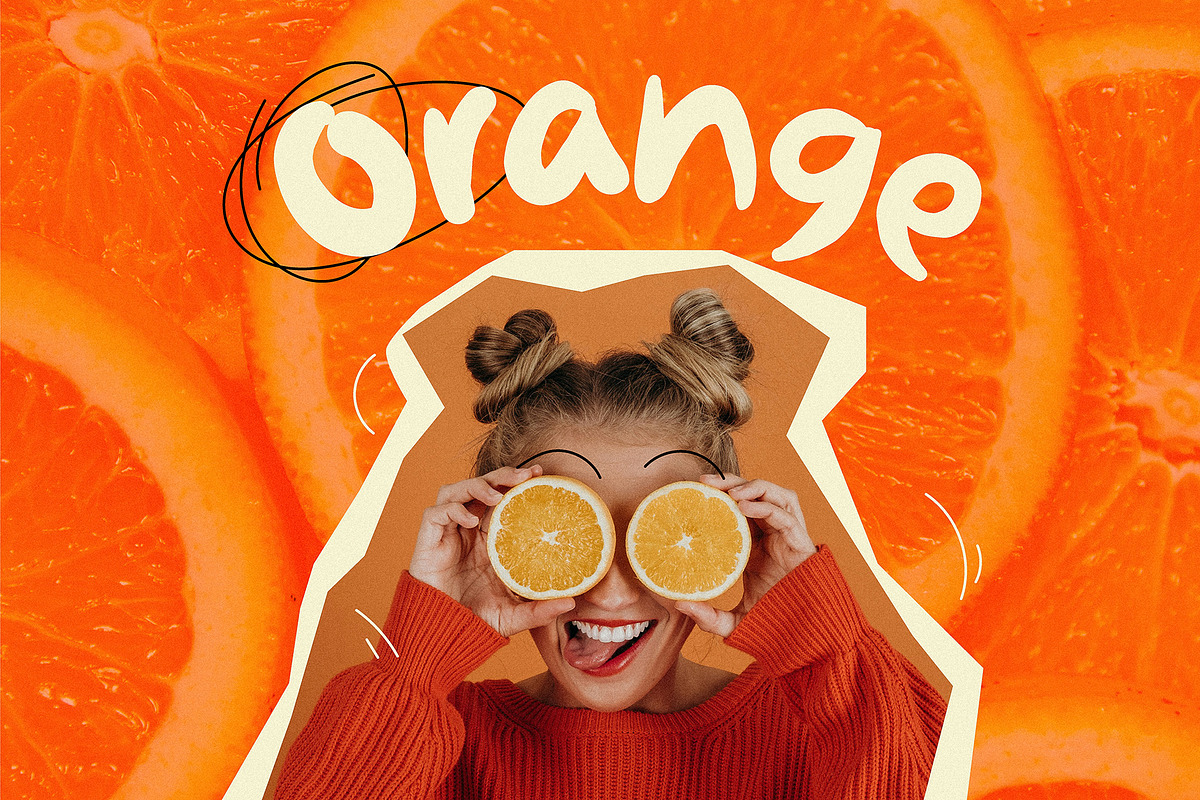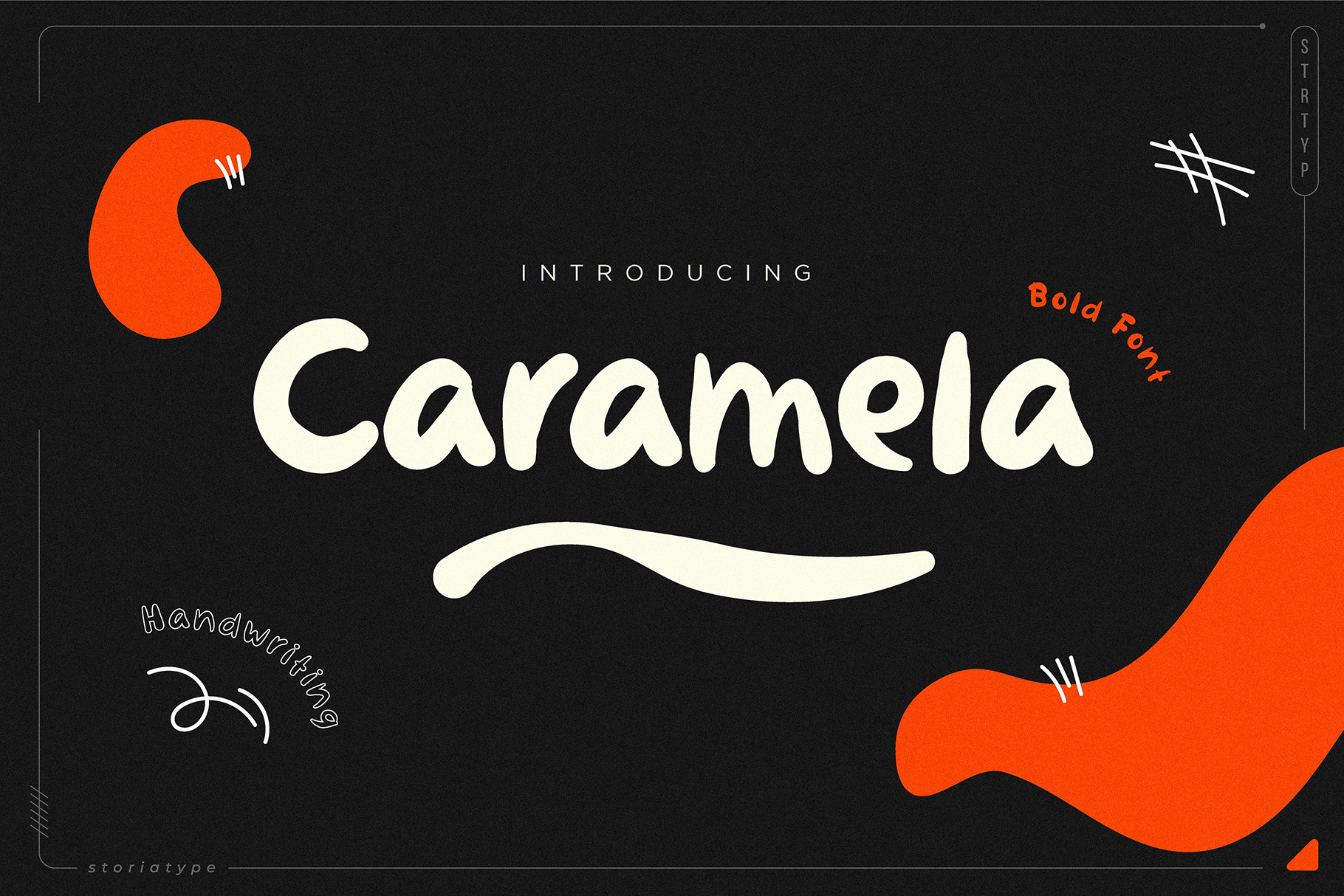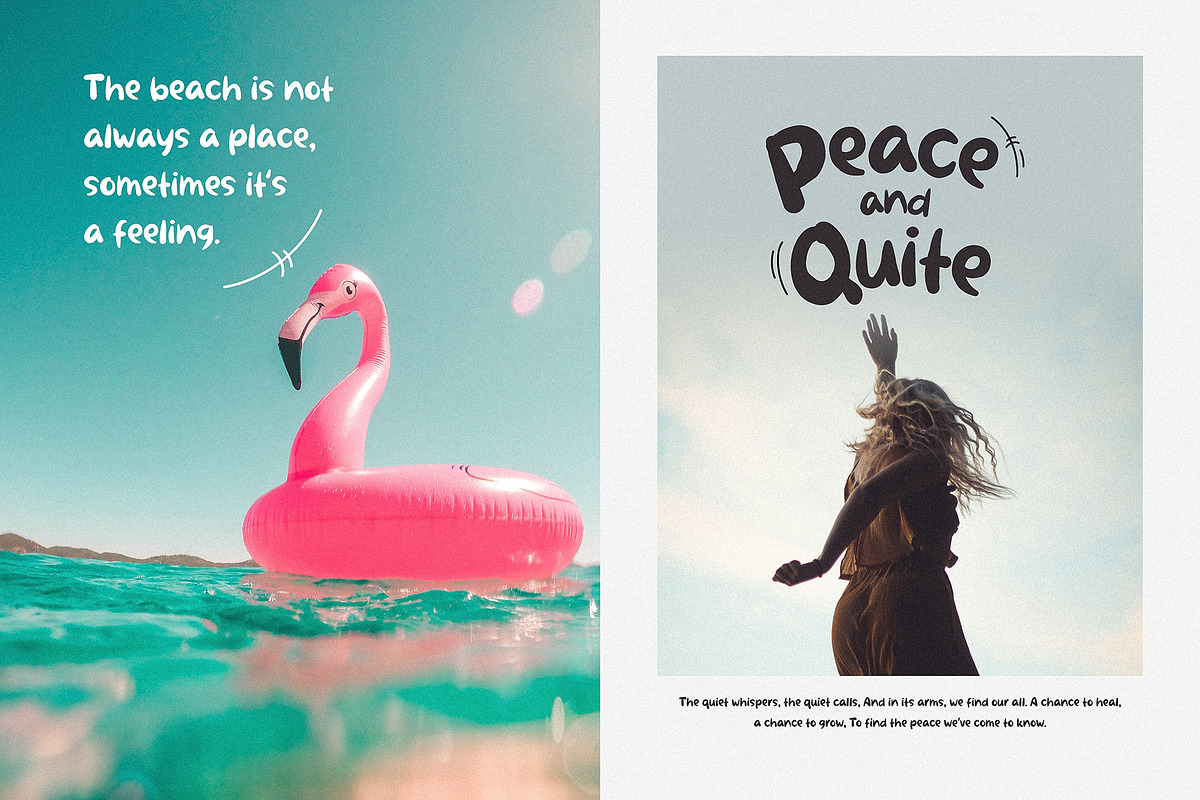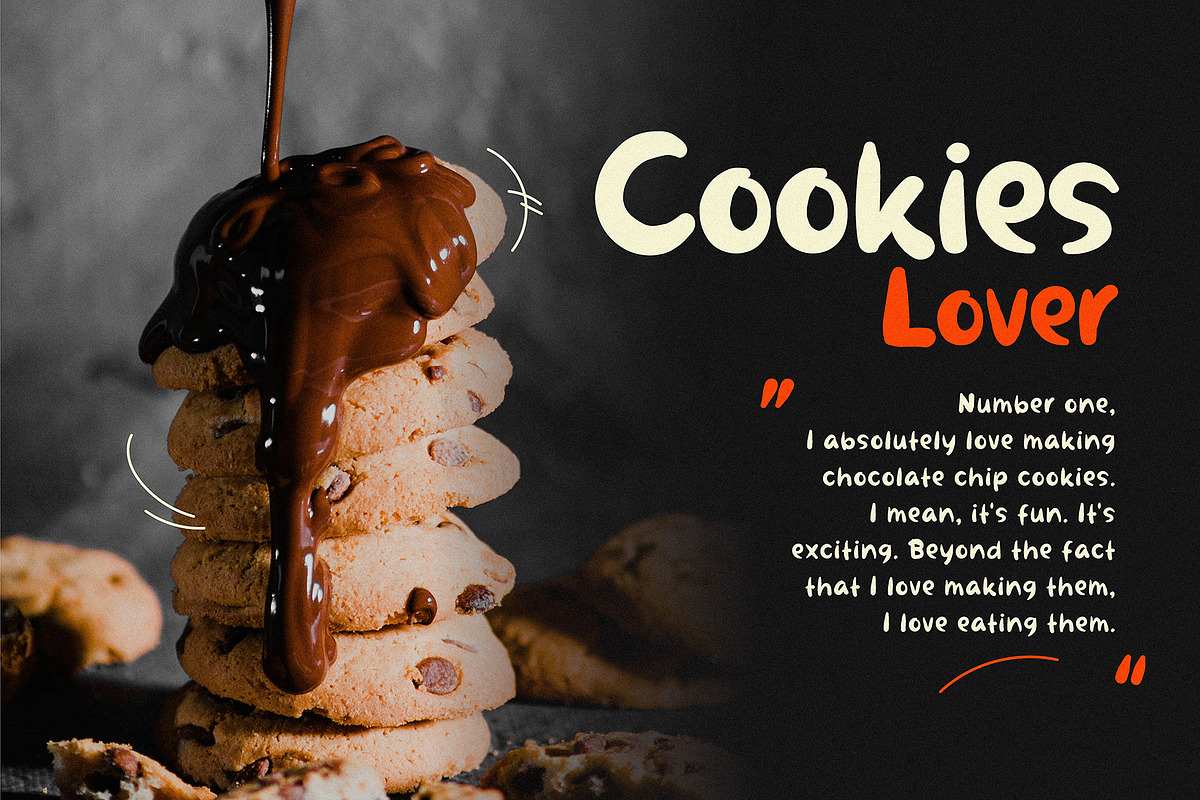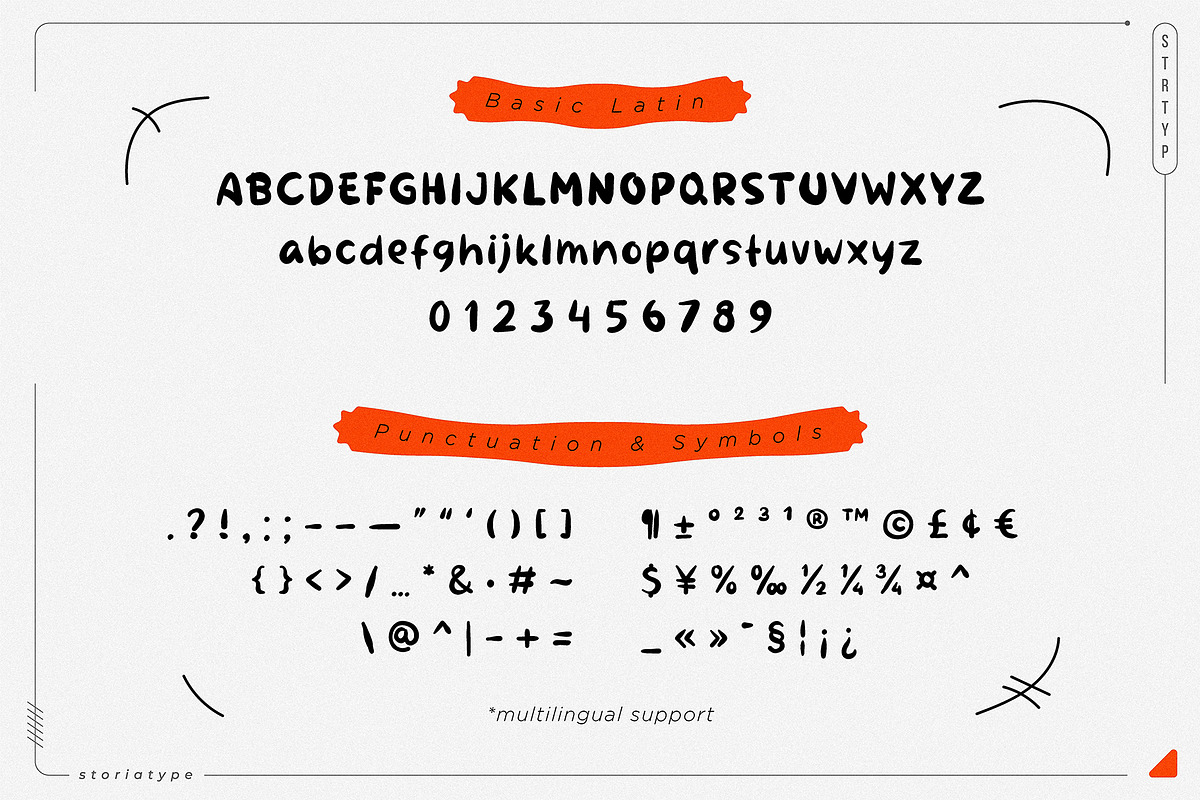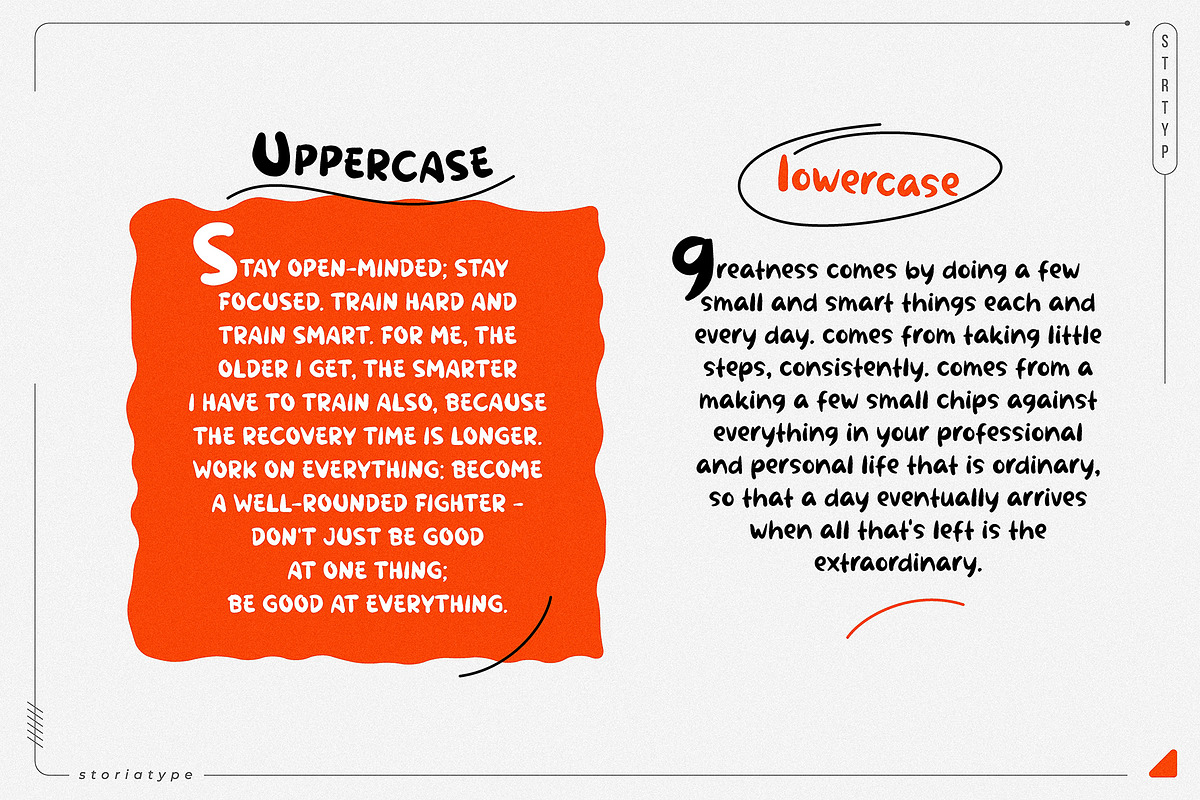
Caramela - Handwriting Font
Bold and Fun: Caramela is a bold and fun handwriting font that is perfect for adding a playful touch to your designs.
Easy to Read: It has been designed with legibility in mind, making it easy to read even at small sizes.
Perfect for Digital and Print Media: Perfect for use in digital media, such as websites, apps, and social media platforms, as well as in print media, such as brochures, flyers, and posters. This is a unique font that will make your designs stand out from the crowd.